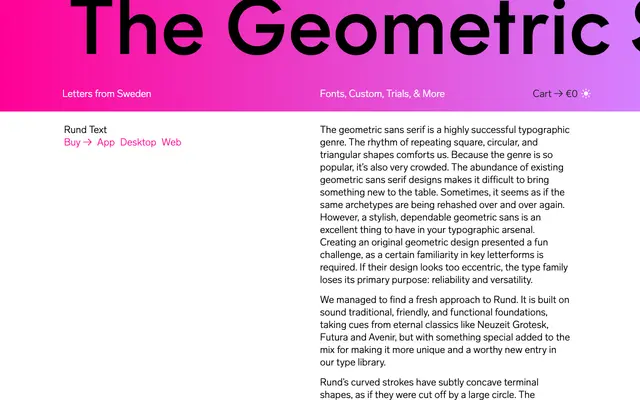
Rund Text
Letters from Sweden · Göran Söderström · 2021
Rund Text specimen from Letters from Sweden
A geometric sans by Göran Söderström that distinguishes itself through subtly concave stroke terminals, echoing broad-nib pen forms and lending warmth to an otherwise classical geometric structure.
Released in 2021, Rund draws on the tradition of Futura, Avenir and Neuzeit Grotesk while adding a specific detail: curved strokes end in slightly concave terminals, as though cut by a large circle, a device that references Optima and broad-nib penmanship. This quality becomes visible at display sizes, adding personality without compromising the reliability expected of the genre at text sizes. The family spans eight Text weights with italics and a separate Display subfamily with exaggerated terminals and tighter spacing, with a variable font available on request.
A geometric sans serif with round forms drawing on Futura, Avenir and Neuzeit Grotesk lineage. The subtly concave stroke terminals distinguish it from typical geometric genre entries.